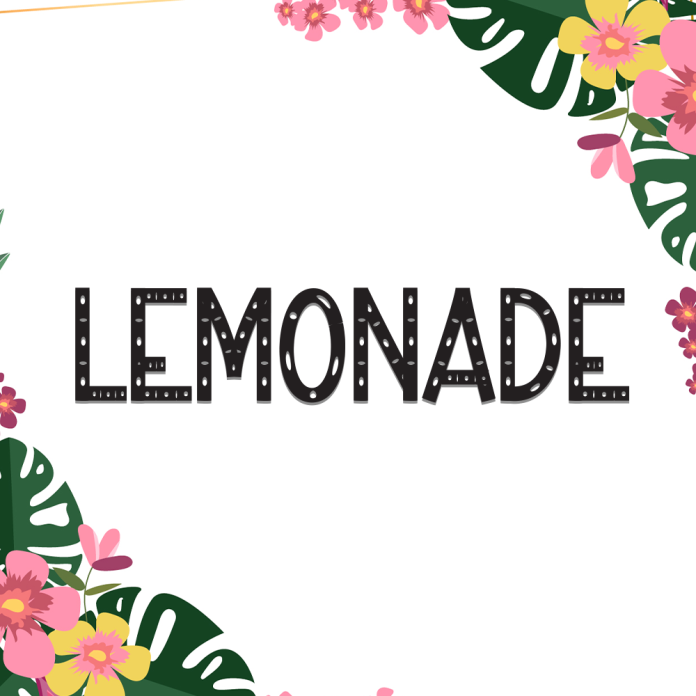
Lemonade is a zesty and refreshing display font that captures the playful spirit of summer days and cool drinks. With bold curves and a cheerful vibe, this font adds a splash of joy and personality to any creative project.
Perfect for summer-themed designs, beverage packaging, party invitations, food branding, and social media graphics, Lemonade delivers a burst of flavor in every letter.
Bright and bold display style
Rounded, friendly letterforms with a fun twist
Great for summer graphics, food and drink branding, and playful posters
Add a burst of sunshine to your designs with Lemonade, the display font that’s as refreshing as it sounds.